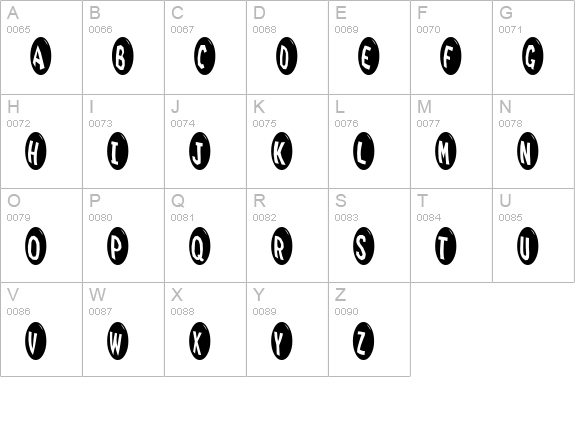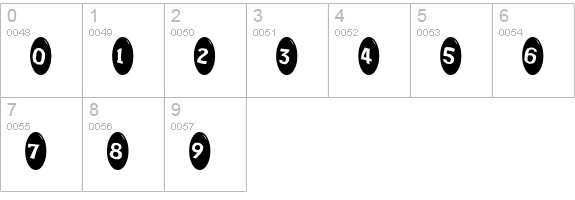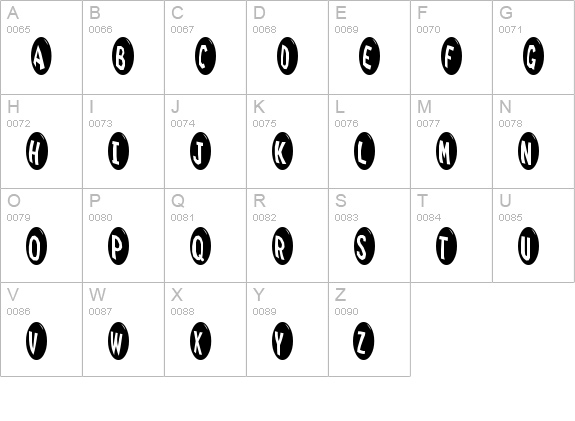
Marrididdles Medium Font Details
Marrididdles Medium is a balanced, medium-weight variant in the Marrididdles typeface family \xE2\x80\x94 well suited to sub-headlines, navigation, and balanced editorial work.
Marrididdles Medium is a modern and versatile font that effortlessly combines elegance with a touch of playfulness. This stunning typeface is perfect for a wide range of design projects, from branding and packaging to social media graphics and website headers. Featuring a balanced and clean design, Marrididdles Medium stands out with its beautiful curves and precise letterforms. Its medium weight adds a touch of sophistication and creates a harmonious balance between boldness and subtlety. This font exudes confidence and professionalism, making it a great choice for both personal and commercial projects. One of the standout features of Marrididdles Medium is its versatility. It can seamlessly adapt to various design styles, whether you're looking for a contemporary and minimalist look or a more traditional and classic aesthetic. This flexibility gives you the freedom to experiment and create unique and captivating designs that truly reflect your vision. And the best part? Marrididdles Medium is freely available to download at FontsMarket.com. This means that you can access this exceptional font without any cost, making it an excellent option for designers on a budget or those looking to try out a new typeface without any commitment. So why wait? Download Marrididdles Medium today and unlock a world of possibilities for your design projects. Whether you're designing a logo, crafting a poster, or creating a stunning website, this font will enhance your work and leave a lasting impression on your audience. Don't miss out on this incredible opportunity to elevate your designs with a free and exceptional font like Marrididdles Medium.